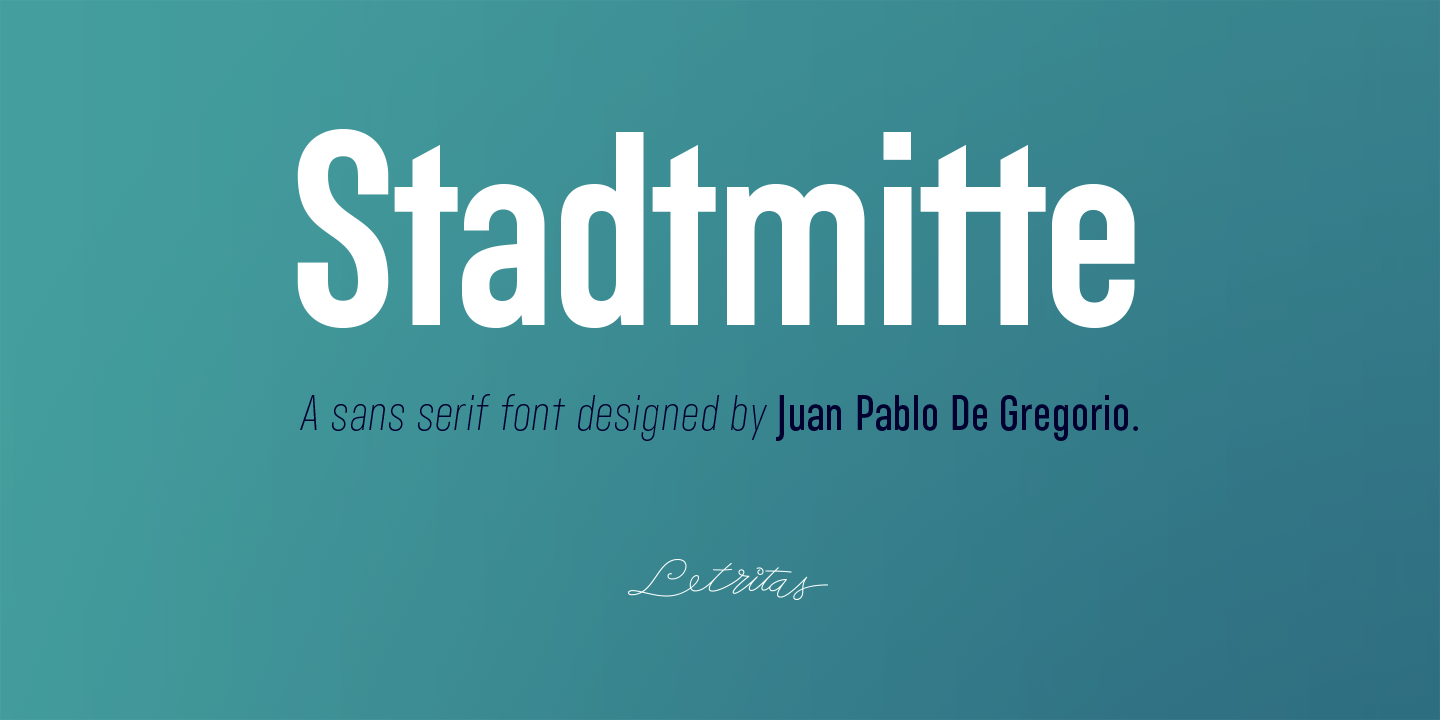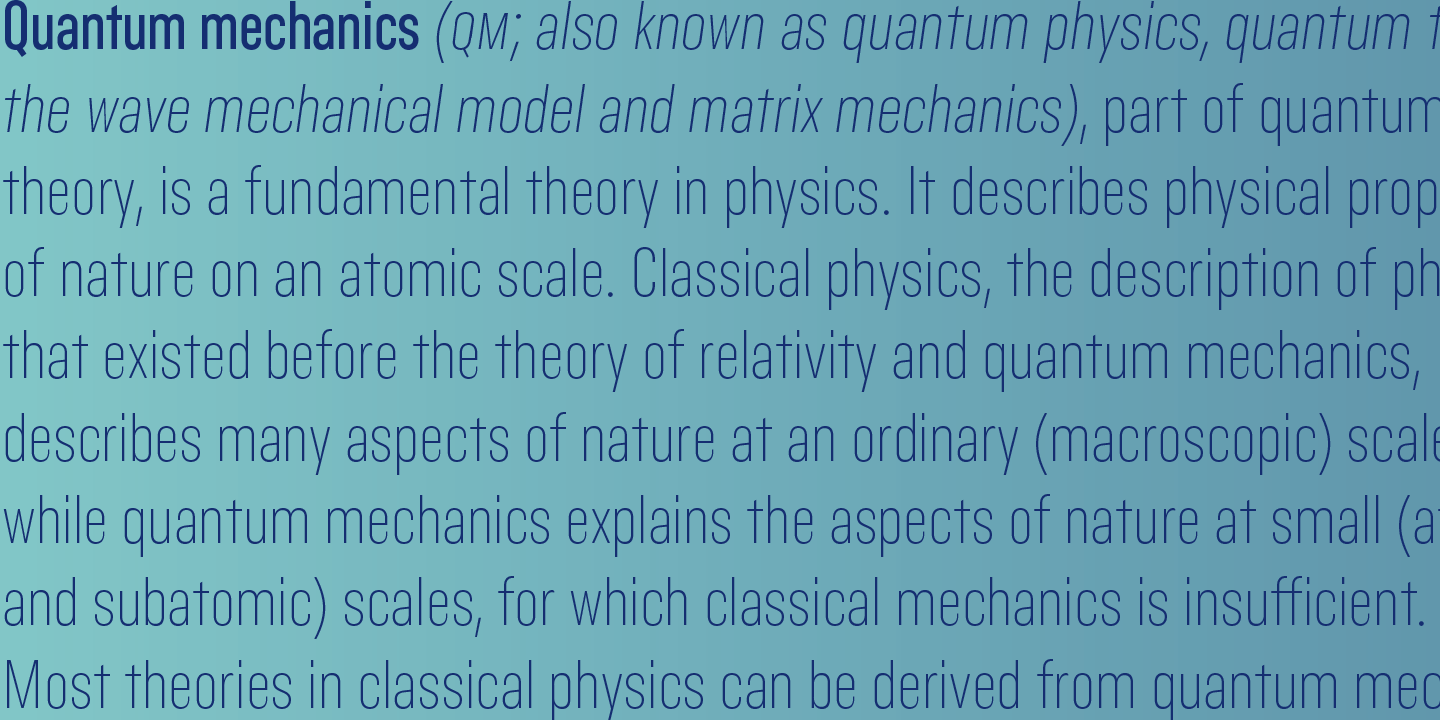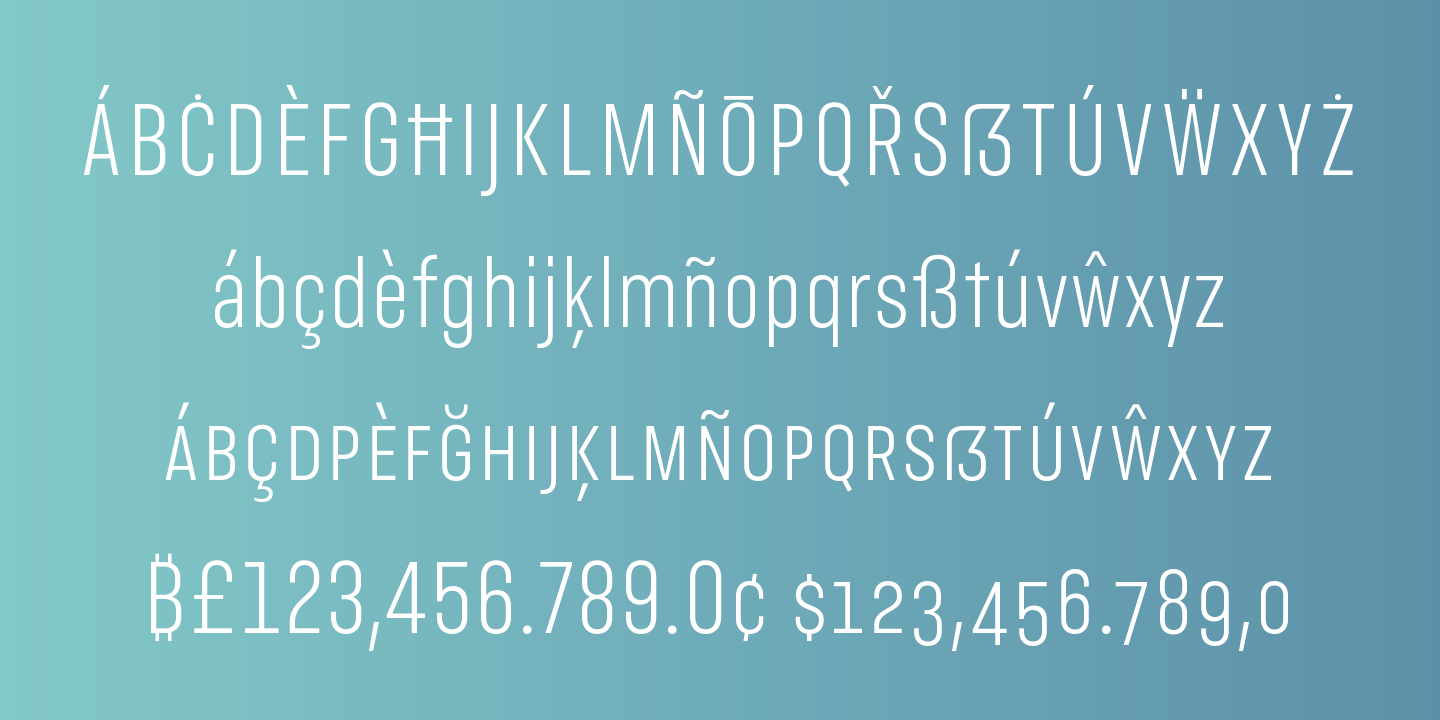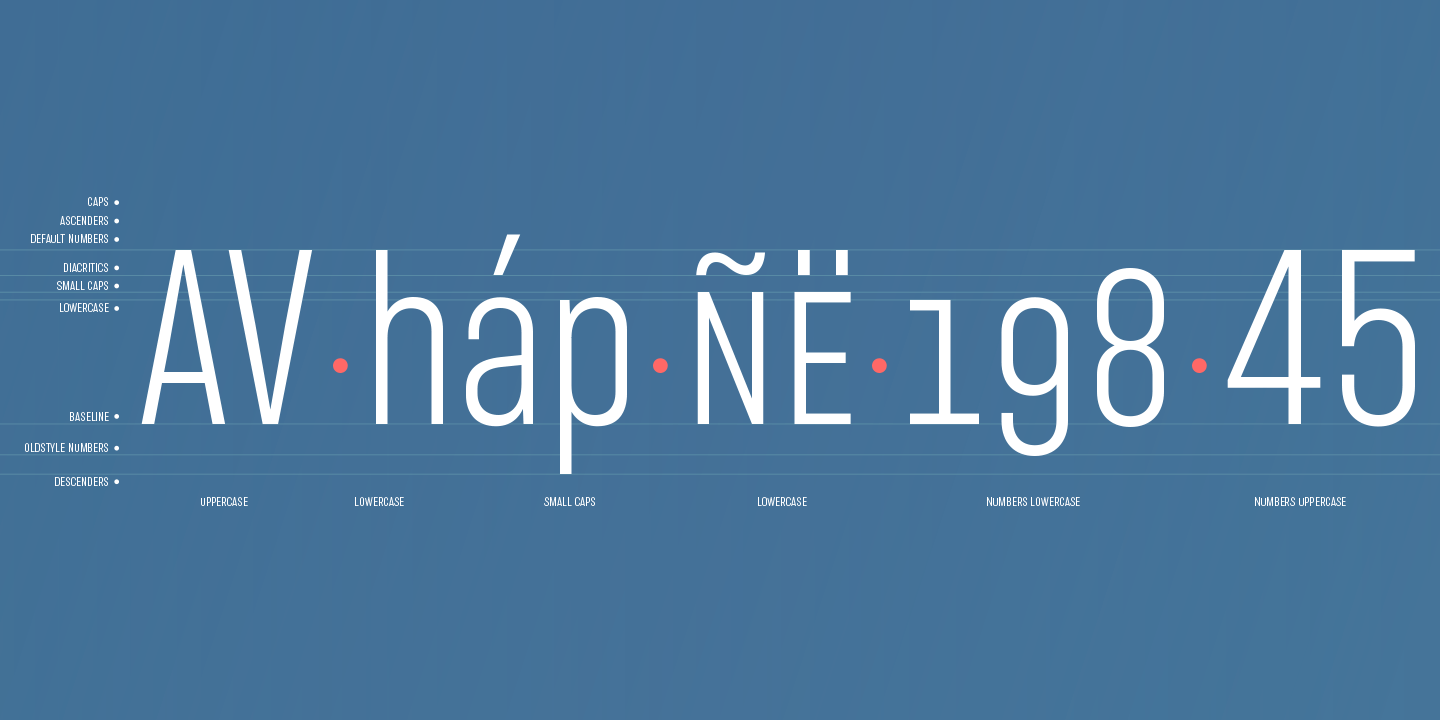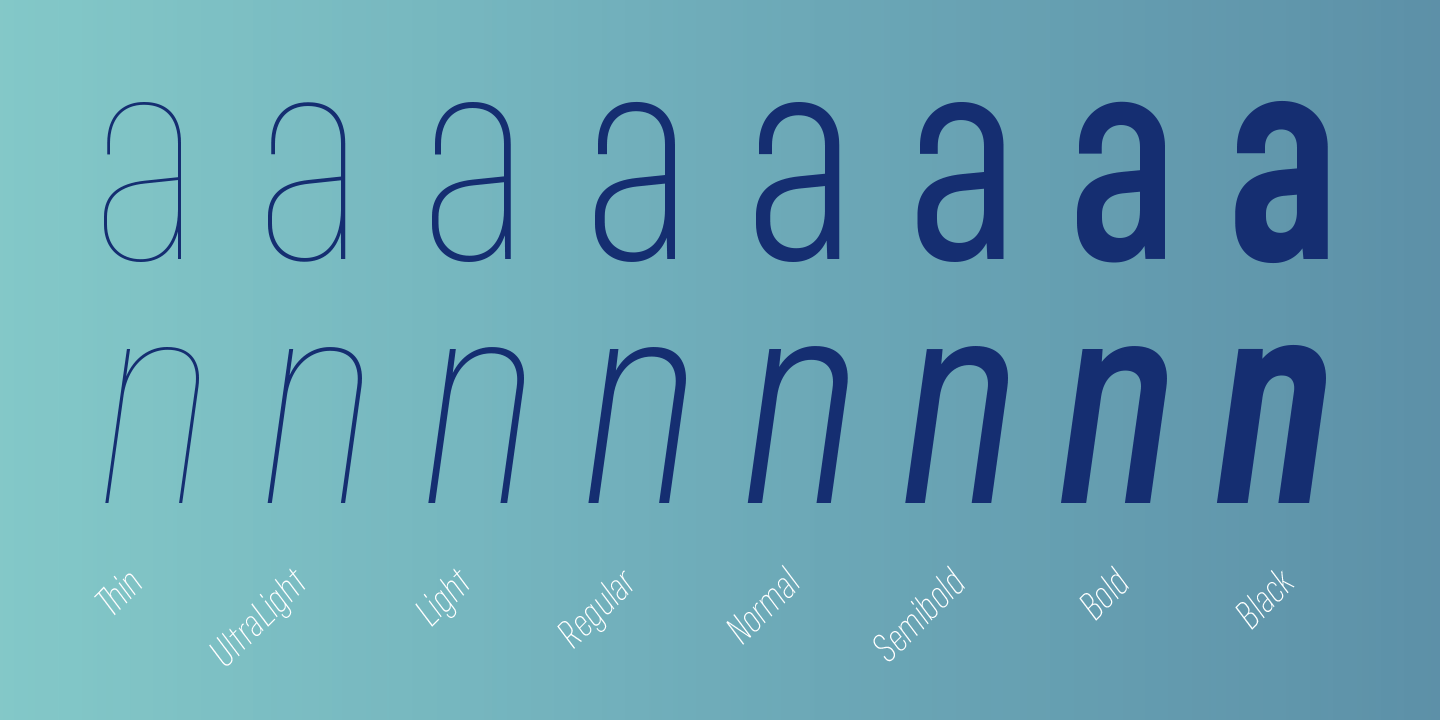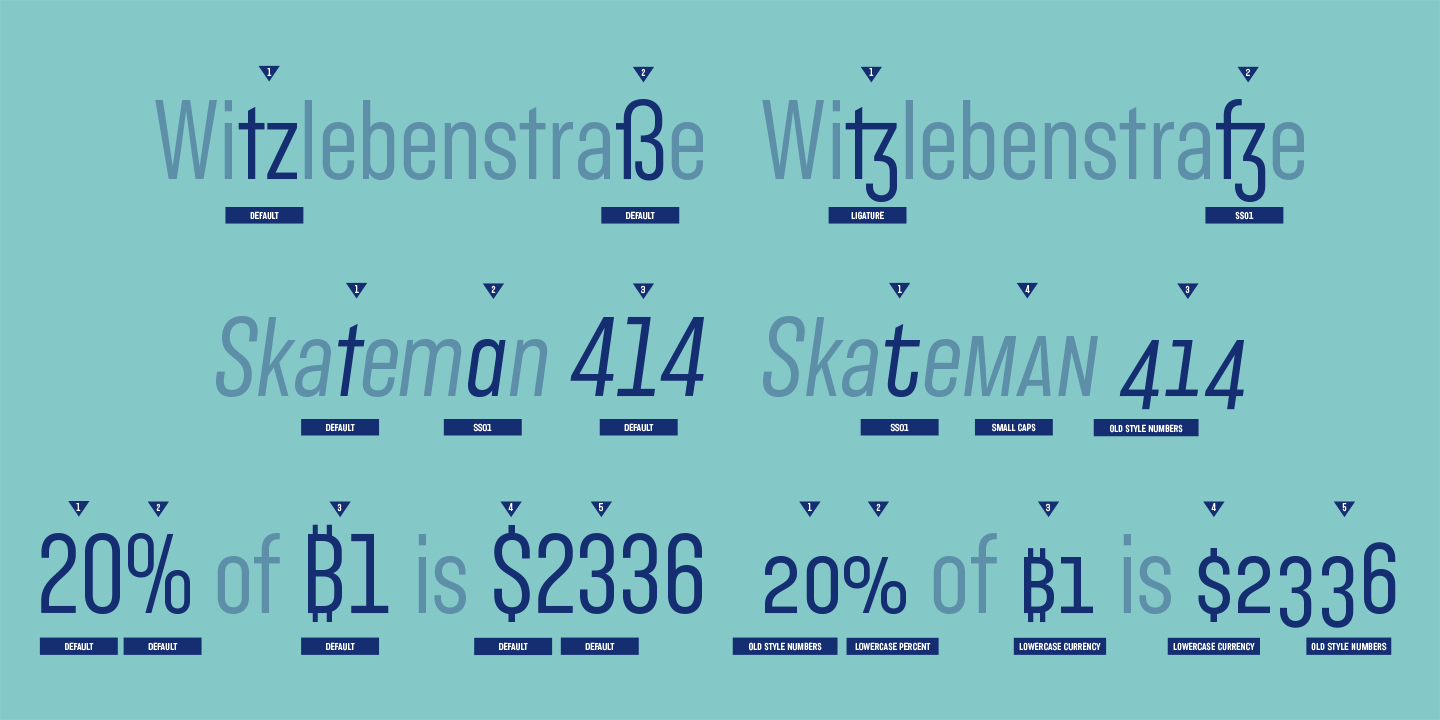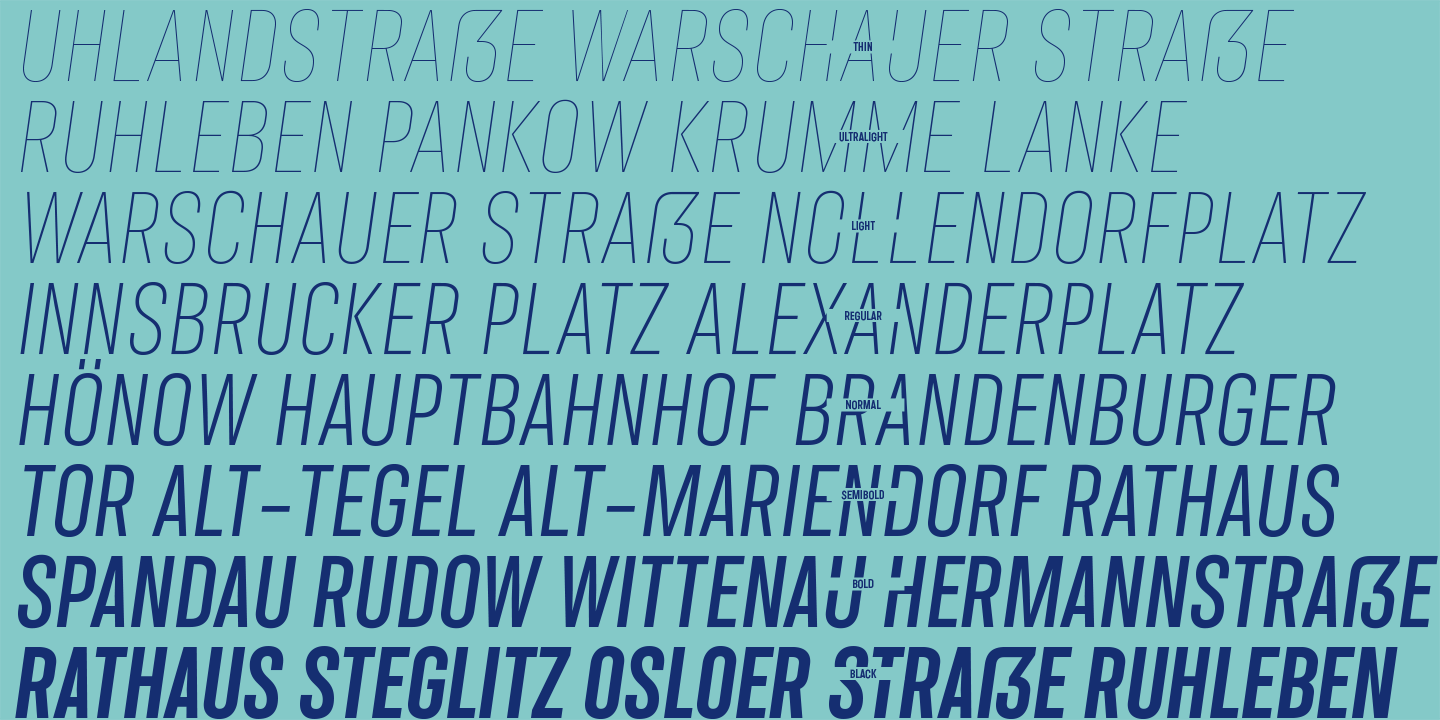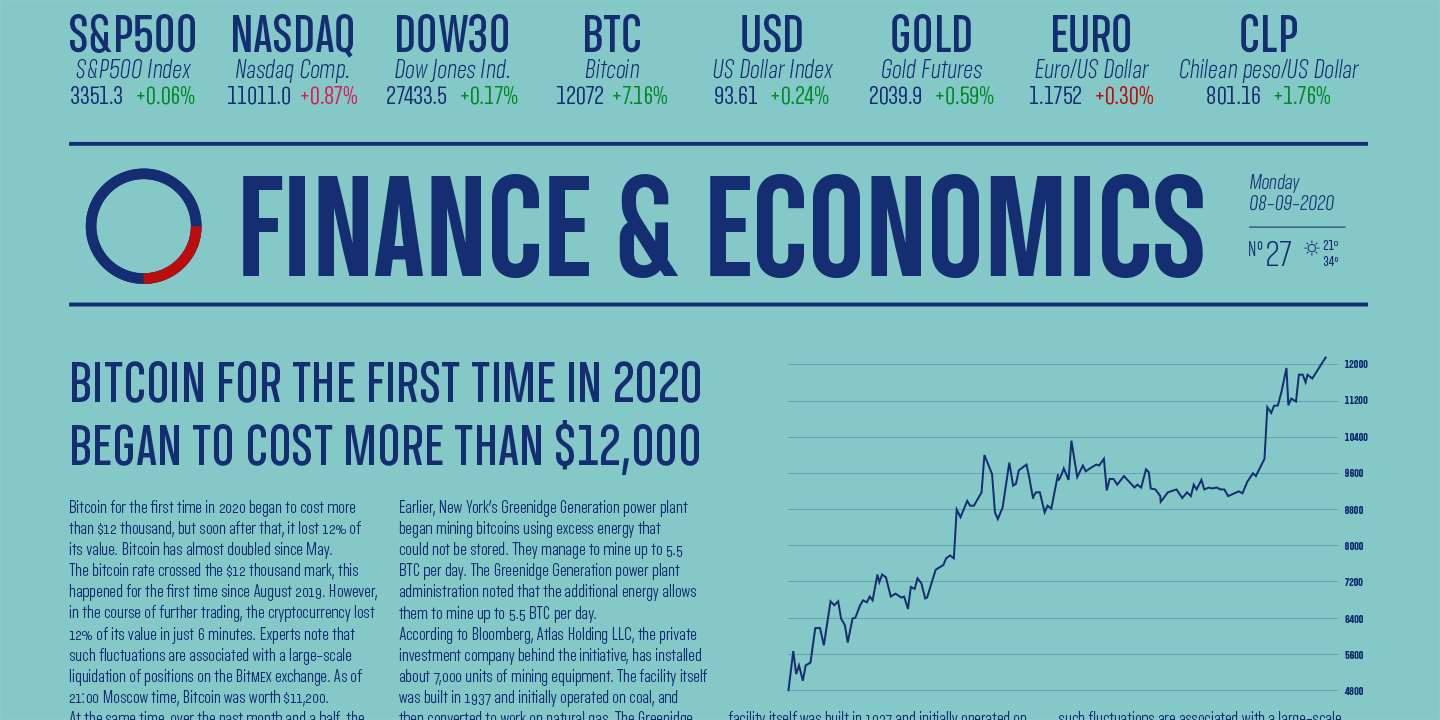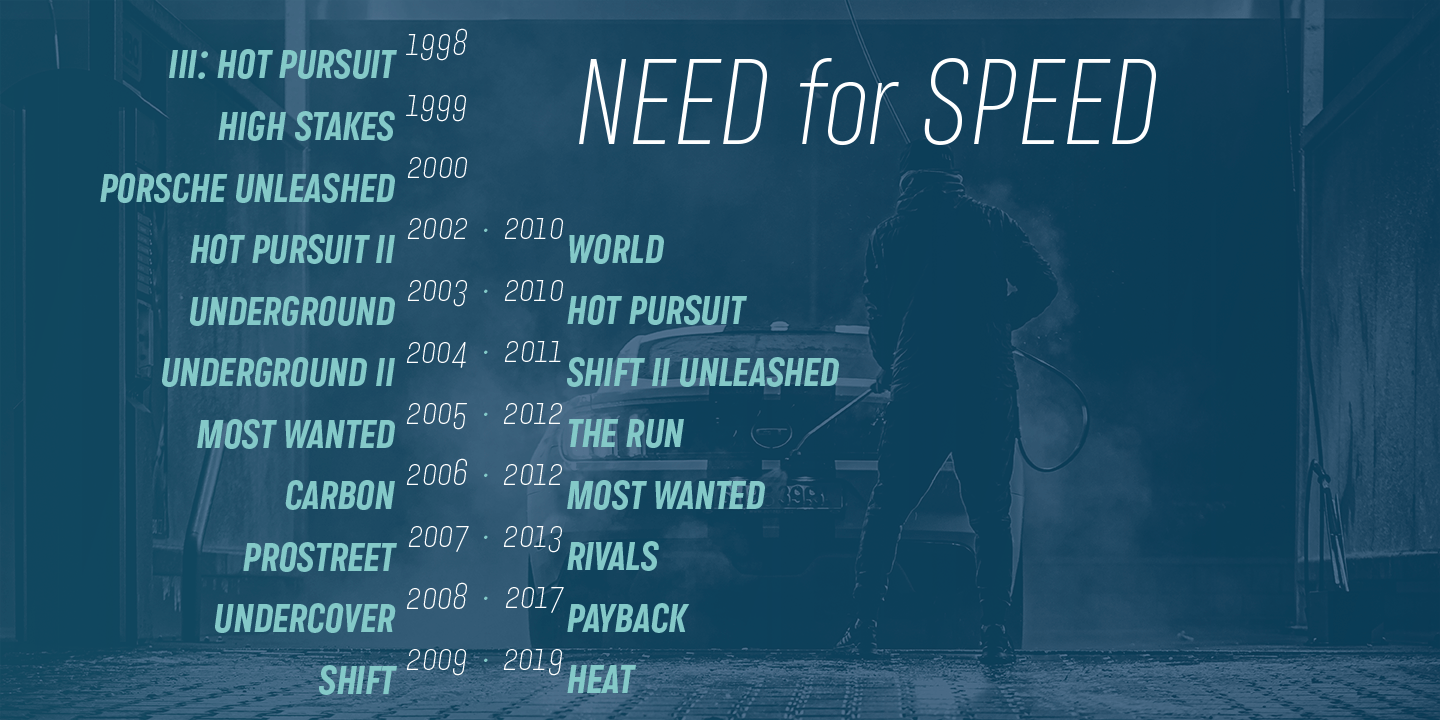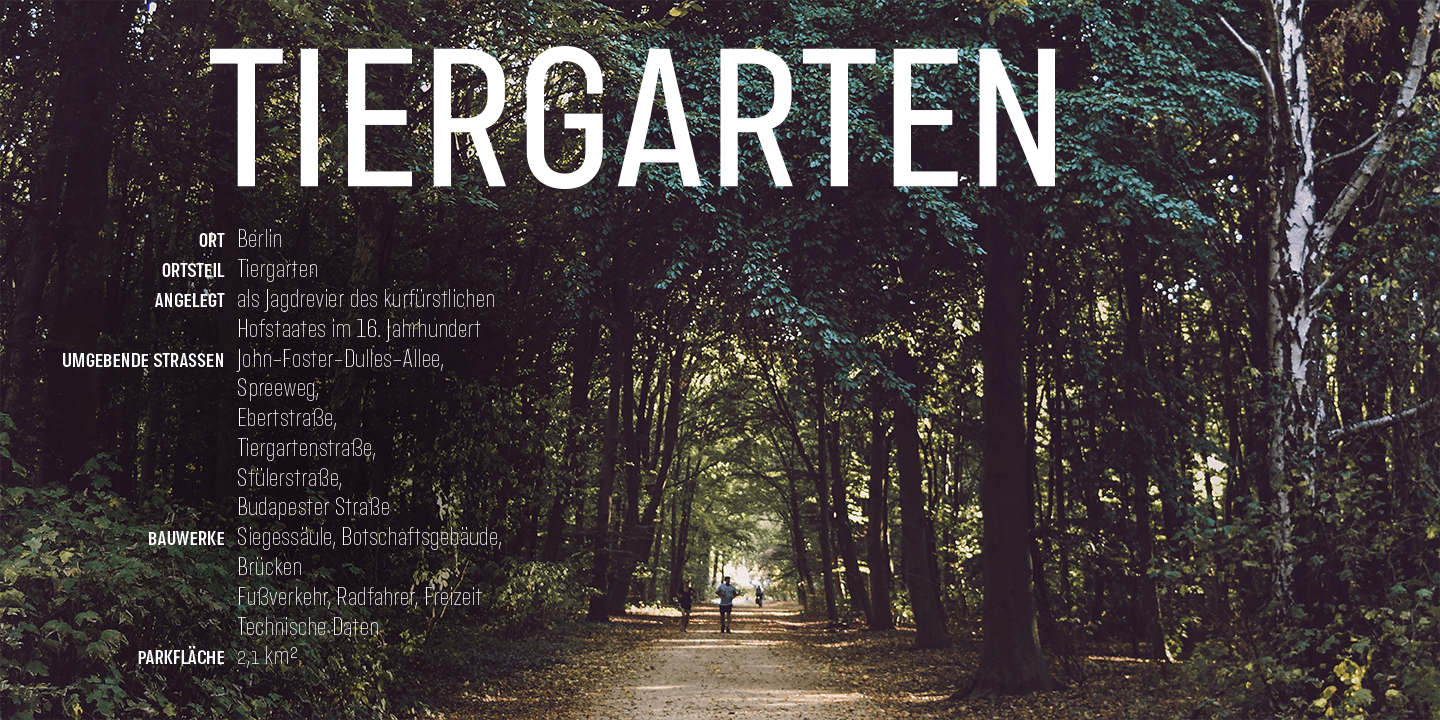
Stadtmitte
Stadtmitte is a grotesque font with a distinctly industrial flair. It is inspired on a reinterpretation of the Berlin’s vernacular signs and characters created under the DIN 1451 norm.
By the early 1900s, german painters and sign makers started to spread this unmistakable way of font drawing used back then on freight trains. Such letter design was both very easy to read and build, hence it started to quickly spread until it became a standard in 1936 for highway signage.
Stadtmitte is not aimed to be yet another literal remake of those drawings but rather a revision of shapes and concepts that seeks to transport us to Germany’s industrial way of creating and displaying information, therefore being suitable for a wide scope of design uses, considering its own nature and different available weights.
The typeface has 8 weights, ranging from “thin” to “black”, and two versions: “regular” and “italic”. Its 16 files contain 618 characters with ligatures, alternates, small caps, old-style and tabular numbers, and case sensitive figures. It supports 219 Latin-based languages, spanning through 212 different countries.